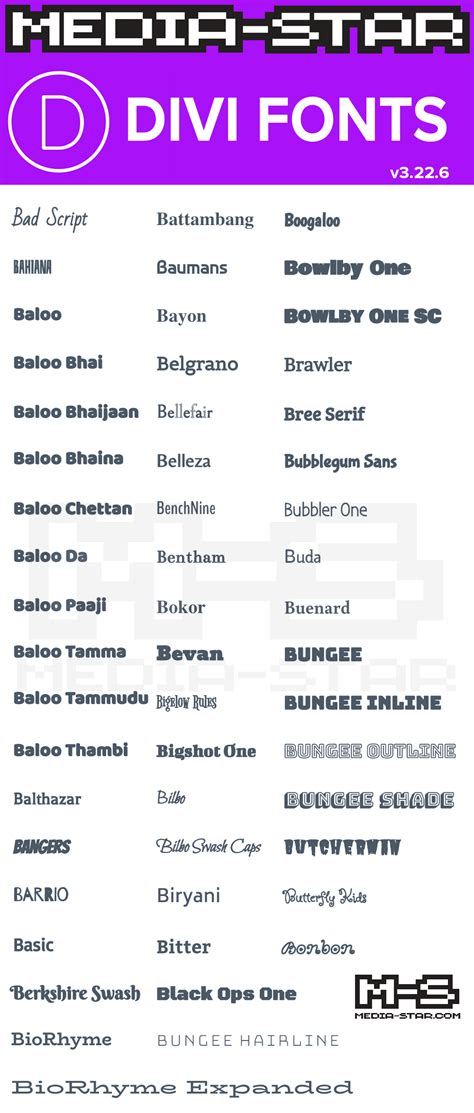
Fonts In Divi. Web the default font in divi is open sans, but you can also have access to 1578 google fonts and upload your own custom font files. Roboto works great as a heading or body font.
Divi Fonts Complete 2019 Divi Font List
Web the default font in divi is open sans, but you can also have access to 1578 google fonts and upload your own custom font files. Roboto is the most popular google font, with over 6 trillion total views. Web divi uses the google fonts collection for its fonts. You can preview the full list of fonts available in divi via the divi builder,. Abel, amatic sc, arimo, arvo, bevan, bitter, black ops one, boogaloo, bree serif, calligraffitti, cantata one, cardo, changa one, cherry cream soda, chewy,. Web here are the names of all 91 divi fonts: Roboto works great as a heading or body font. That’s a lot of fonts, and there are 2 ways to preview them.
Web divi uses the google fonts collection for its fonts. Web the default font in divi is open sans, but you can also have access to 1578 google fonts and upload your own custom font files. Web here are the names of all 91 divi fonts: Roboto works great as a heading or body font. Abel, amatic sc, arimo, arvo, bevan, bitter, black ops one, boogaloo, bree serif, calligraffitti, cantata one, cardo, changa one, cherry cream soda, chewy,. Web divi uses the google fonts collection for its fonts. That’s a lot of fonts, and there are 2 ways to preview them. Roboto is the most popular google font, with over 6 trillion total views. You can preview the full list of fonts available in divi via the divi builder,.